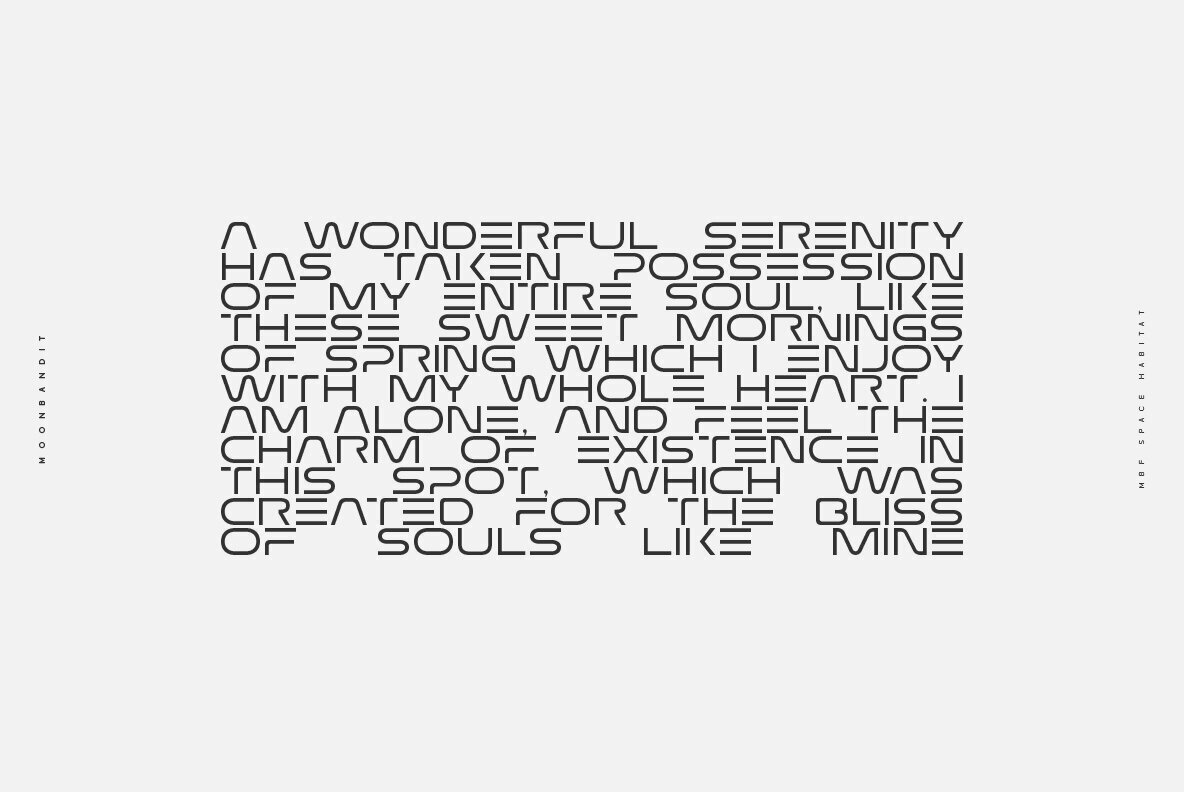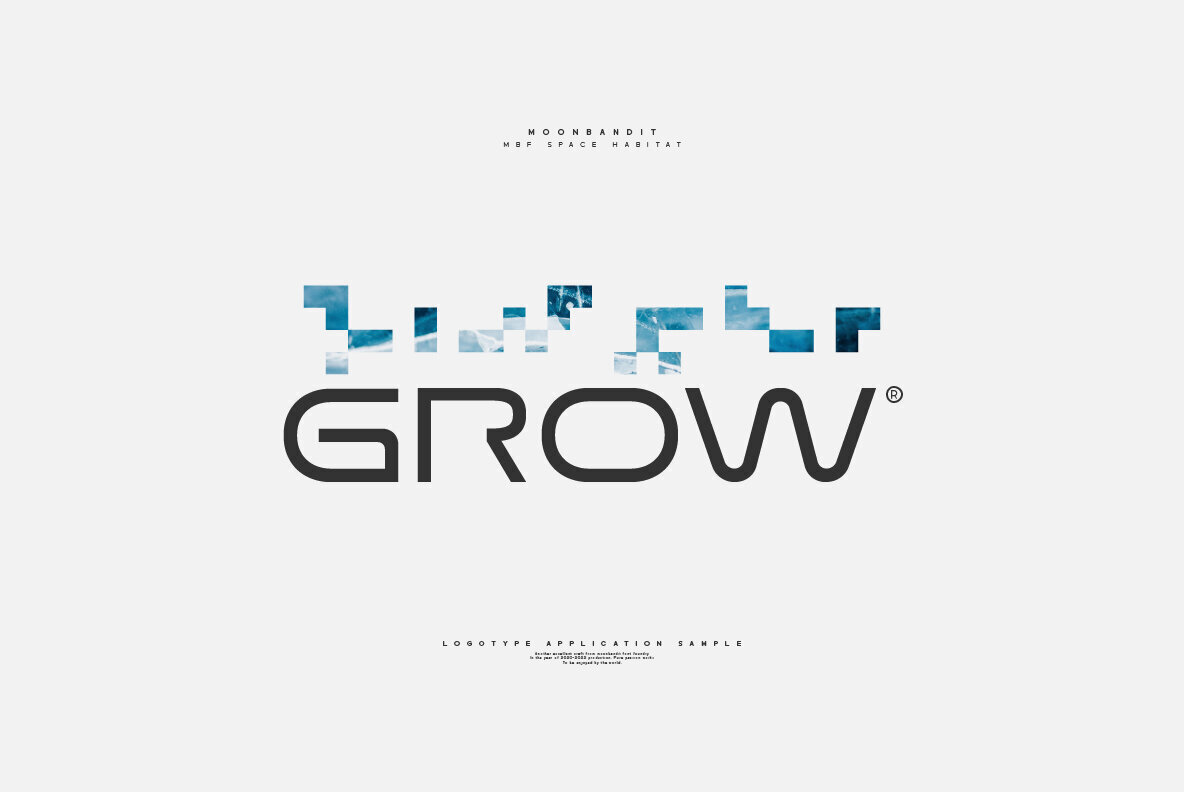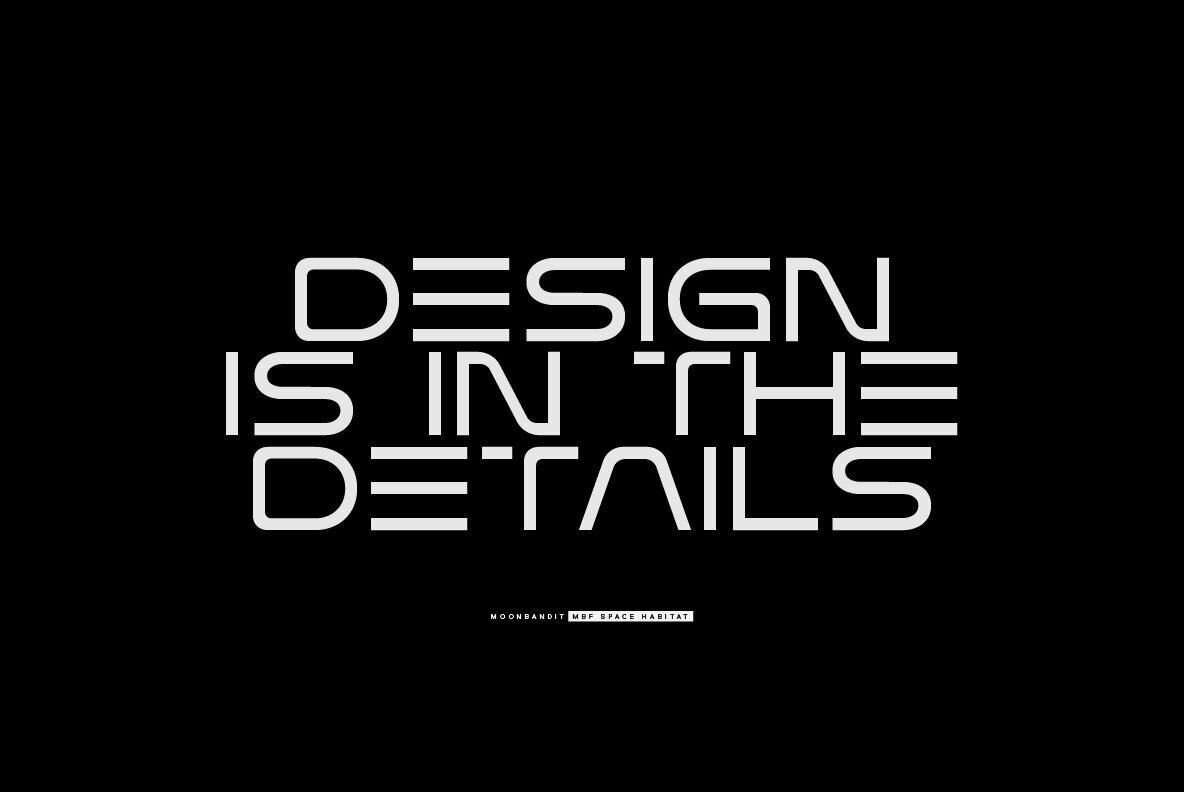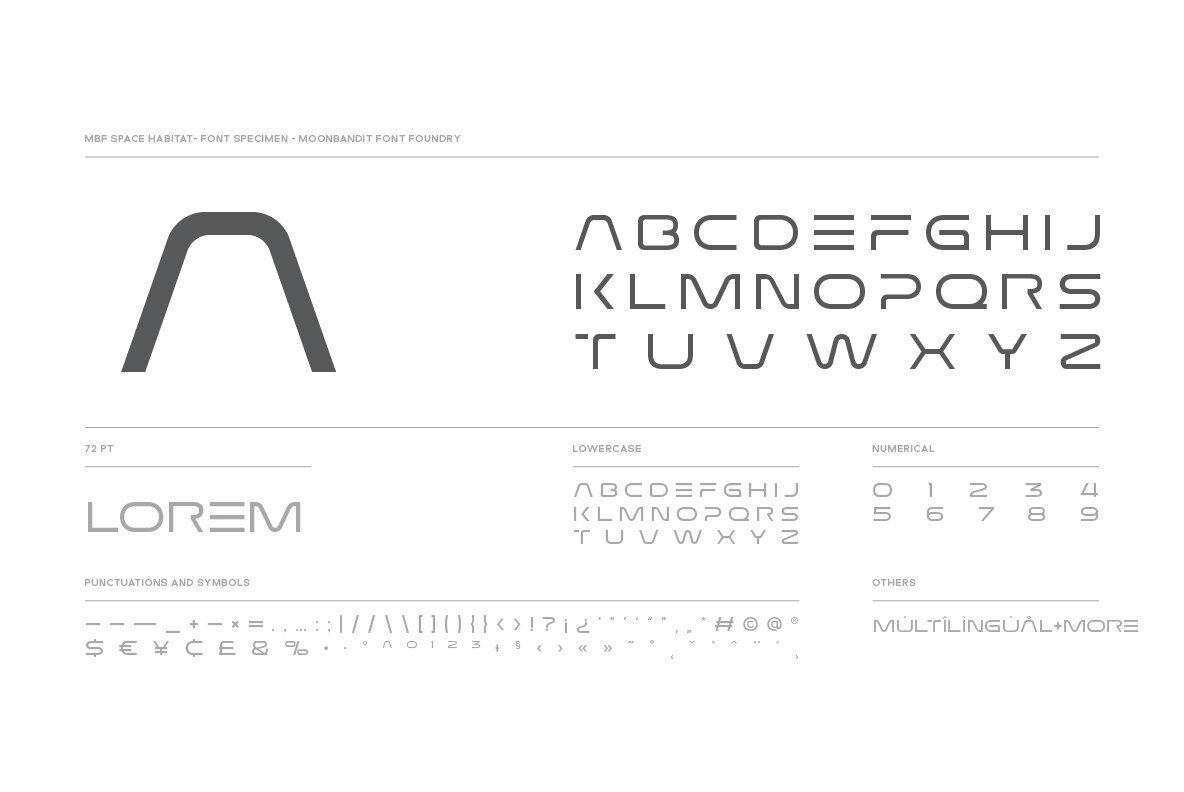
MBF Space Habitat Font
MBF Space Habitat
Space Habitat is a modern minimalist sans serif display font. Wide and wavy with a lot of rounded corner and sharp edge, emphasize the futuristic sci-fi theme. Perfect usage includes logo, poster, display, headline, t-shirt design and many more.